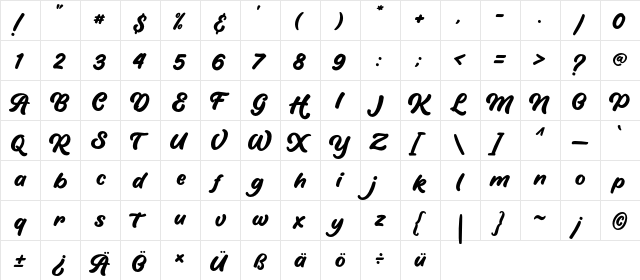
HiRolley Script Regular
Design Context for HiRolley Script Typeface
HiRolley Script brings a calligraphic fluidity to the page — its connecting strokes and expressive curves give it an unmistakably human quality.
Font Pairing: Combine HiRolley Script with a simple geometric sans for maximum contrast — the tension between flowing curves and clean structure is a classic typographic pairing.
Pro Tip: Pair HiRolley Script with a clean sans-serif for supporting text. The contrast between fluid script and geometric structure creates an elegant typographic hierarchy.